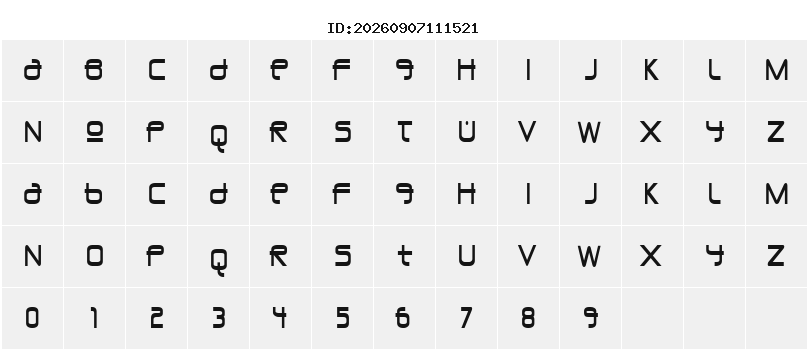
• Font Name: Union City Blue
About Union City Blue.ttf
Union City Blue.ttf is a modern, elegant sans-serif font designed for ultimate readability and visual harmony. Perfect for branding, headlines, web design, and print materials.